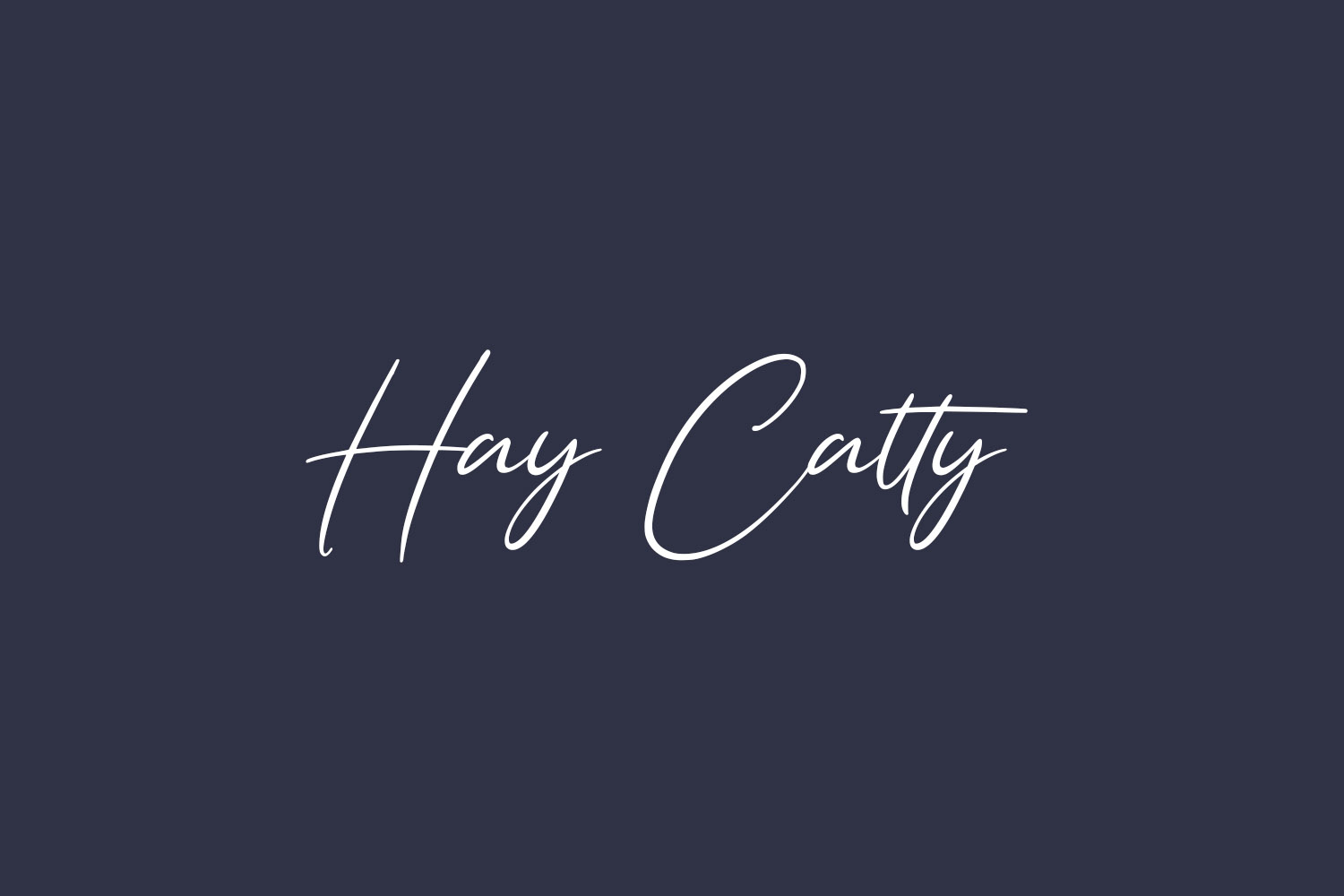
Hay Catty Free Font is a flowing, well balanced and refined script font. It has a classy, elegant, and modern look that can be used for logos, branding, invitations, stationery, wedding designs, social media posts, and much more. Hay Catty Free Font was designed by StringLabs and is free for personal use only. Please purchase the full version for commercial use.